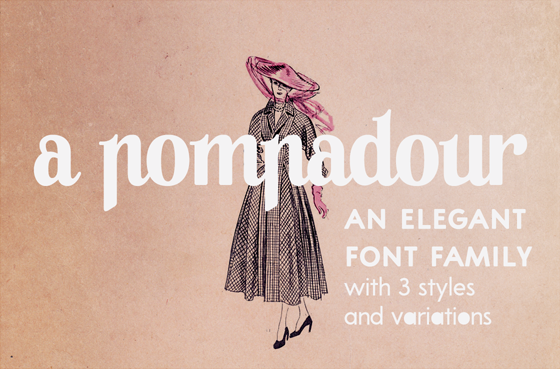
A Pompadour is an elegant retro font family, in two styles, with: A-Z, a-z, 0-9, accents, punctuation and symbols Ligatures Small Caps Swashes Extra version of the font: filled Try it out for free (for private use) with this sample version! For the full commercial version, please visit one of these links: https://www.anasfonts.com/ https://creativemarket.com/justlikethistrain?u=justlikethistrain http://www.revolge.com/shop/anas-fonts/ https://thehungryjpeg.com/anas-fonts/ https://www.fontspring.com/foundry/anas-fonts https://buyafont.com/designer/anas-fonts |